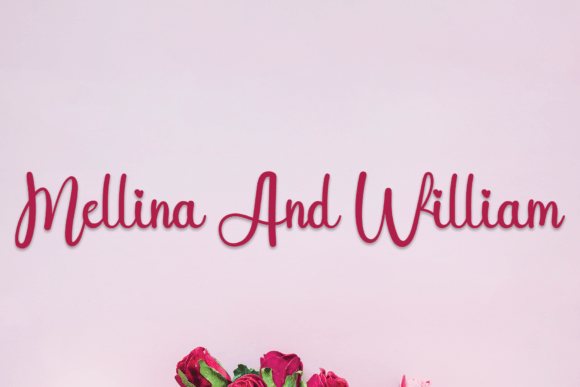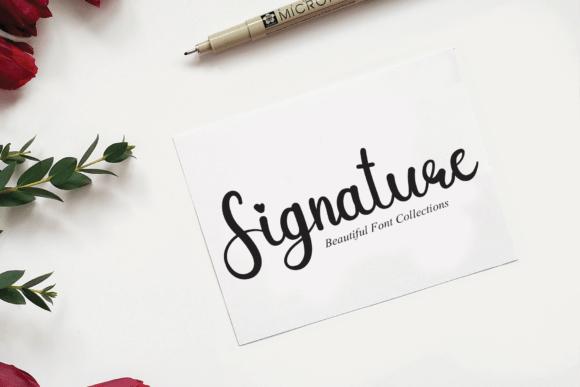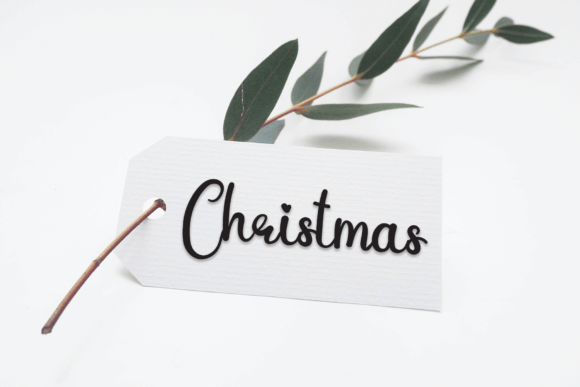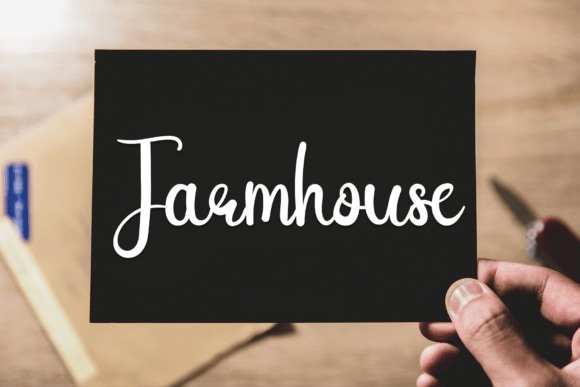
The Perfect Font for Your Brightest Creations
Do you remember the feeling of excitement and nervousness when creating something special for a loved one? Perhaps it was a handmade card or a digital presentation that required the perfect touch. For many of us, the right font can make all the difference in bringing our ideas to life. This is exactly why we’re excited to introduce you to the Bright Smile Font, a simple and friendly handwritten font designed to add a personal touch to any project.
Whether you’re a seasoned designer or a crafty enthusiast, the Bright Smile Font has the potential to become your go-to choice for any occasion. Its versatility and approachable style make it a valuable asset for designers looking to add a touch of warmth and personality to their work.
Bright Smile Font Key Features
- Font Family: Bright Smile Font
- Unique Characteristics: Bright Smile Font features a modern, clean design with a unique smile-shaped character set, making it perfect for branding and advertising materials.
Bright Smile Font Review
Overall, I’d say that Bright Smile Font is a solid addition to any designer’s toolkit. It has a lot of charm and is perfect for creating a cheerful and approachable vibe in your designs. ✨
Here are some things that I think work well:
- The font is highly customizable, allowing you to adjust the size, color, and even add some nice effects to make it stand out.
- The font is available in a range of weights, from light to bold, making it perfect for creating a hierarchy of text in your designs.
- The font is highly legible, even at small sizes, making it perfect for creating user interfaces and other digital products.
That being said, there are some limitations to the font that I think are worth mentioning:
- The font may not be the best choice for creating a professional or formal look, as it’s a bit too playful and whimsical.
- The font may not be suitable for use in situations where a high degree of precision is required, such as in technical or scientific contexts.
Overall, I think Bright Smile Font is a fun and versatile font that can add a lot of personality to your designs. While it may have some limitations, I think it’s well worth considering for any project where you want to create a cheerful and approachable vibe.
For best results, use the Bright Smile Font in combination with bold and italic text to create a visually appealing design.
For best results, use the Bright Smile Font in combination with other fonts to create a unique and eye-catching design.
For best results, use the Bright Smile Font in headings and titles to create a professional and modern look.
The Bright Smile Font is ideal for creating cheerful and uplifting designs, such as:
– Children’s book illustrations
– Marketing materials
Remember to use the Bright Smile Font in moderation and in combination with other fonts to avoid overwhelming the design.
Alternatives to Bright Smile Font
Lobster Font is a fun, casual script font perfect for titles, headings, and emphasis. It is ideal for creating a playful and youthful atmosphere in designs. When to use: Blogs, social media, advertising, and entertainment projects.
Compared to Bright Smile Font, Lobster Font has a more dramatic and attention-grabbing feel, making it suitable for projects that require a bold statement.
Great Vibes Font is a beautiful, elegant script font ideal for creating a sense of sophistication and luxury. It is perfect for titles, headings, and body text in high-end designs. When to use: Luxury brands, fashion, and fine dining projects.
Compared to Bright Smile Font, Great Vibes Font has a more refined and polished feel, making it suitable for projects that require a touch of elegance.
Carolyna Pro Font is a modern, elegant script font perfect for creating a sense of sophistication and refinement. It is ideal for titles, headings, and body text in high-end designs. When to use: Fashion, beauty, and luxury projects.